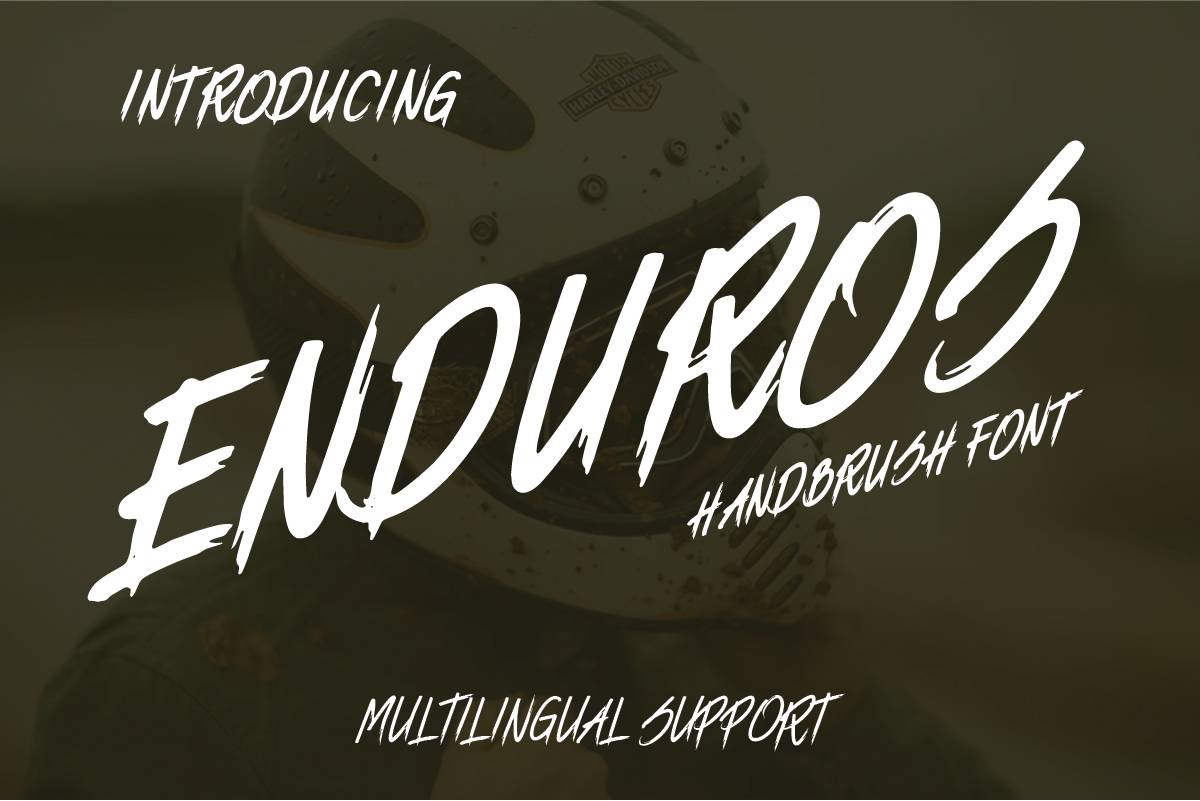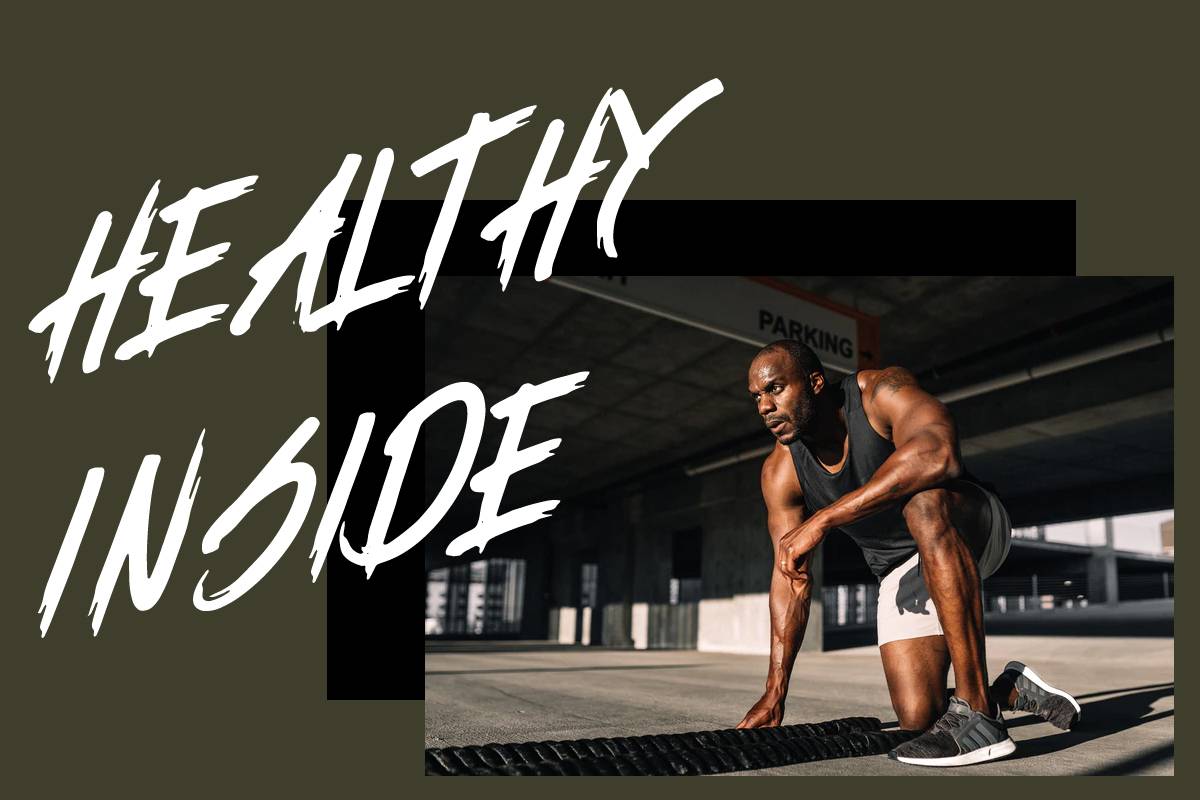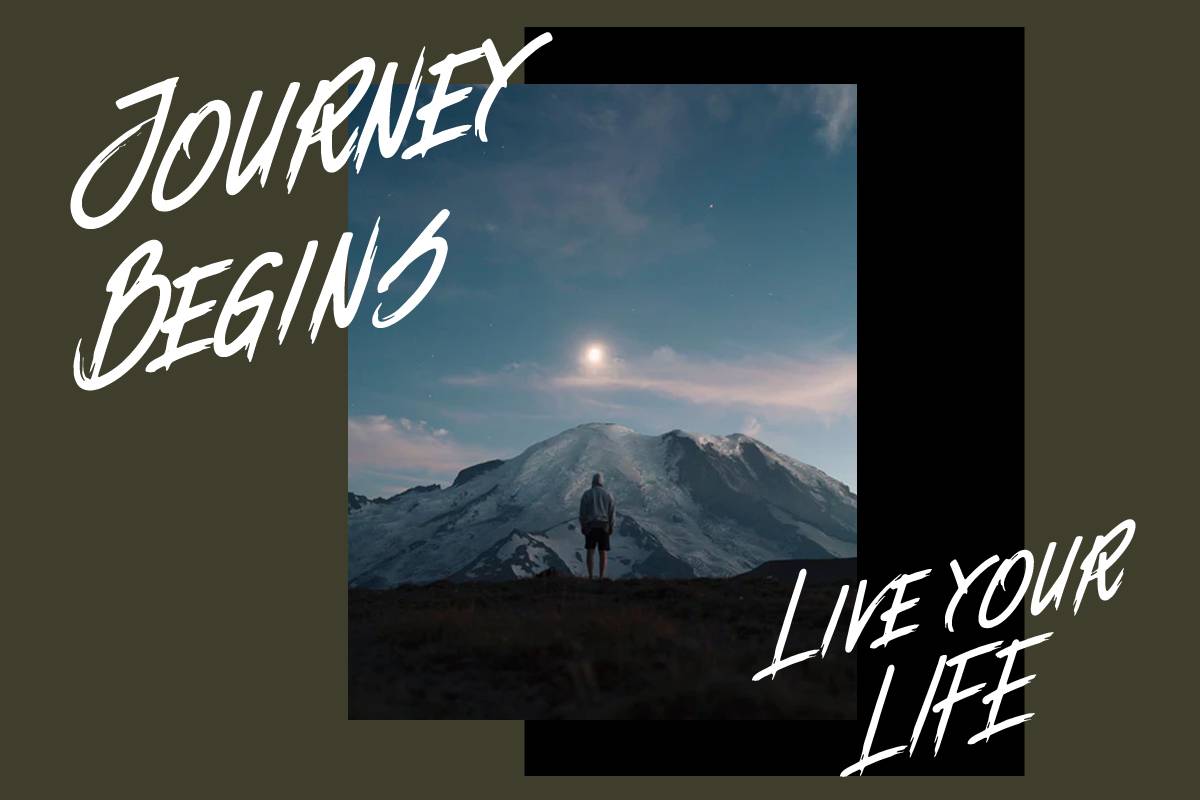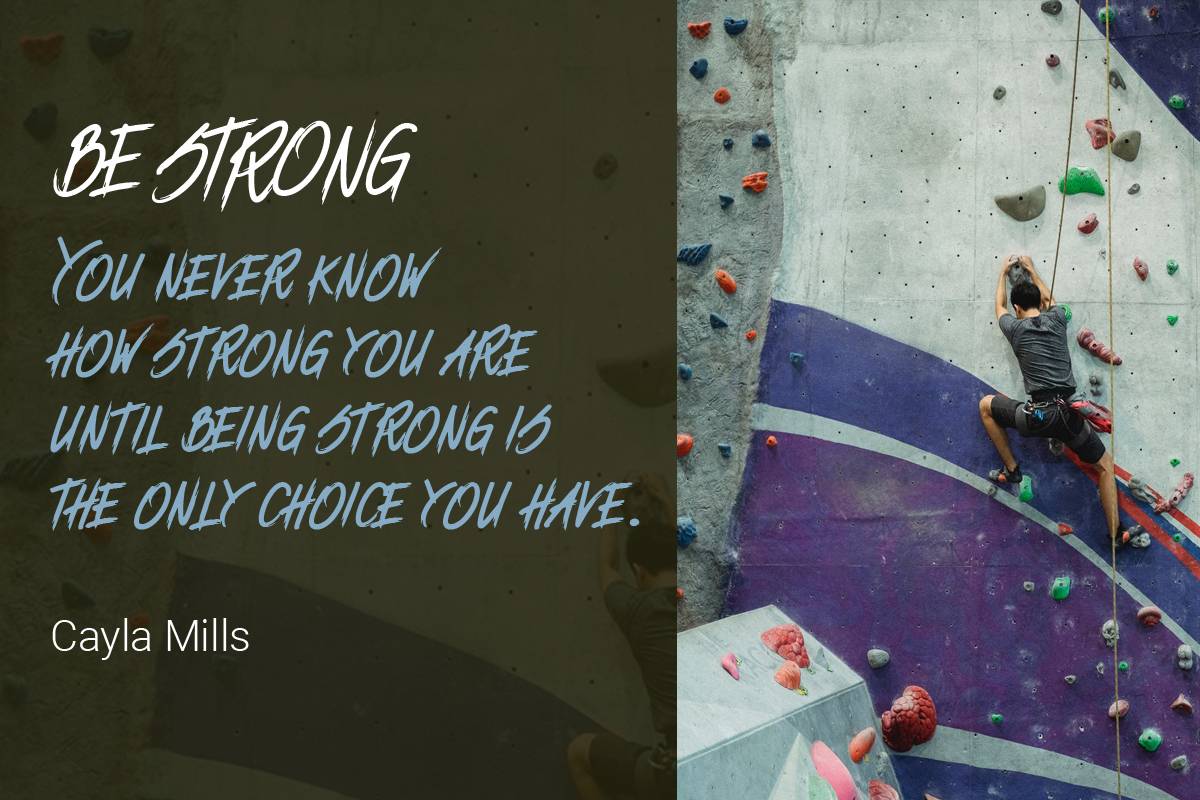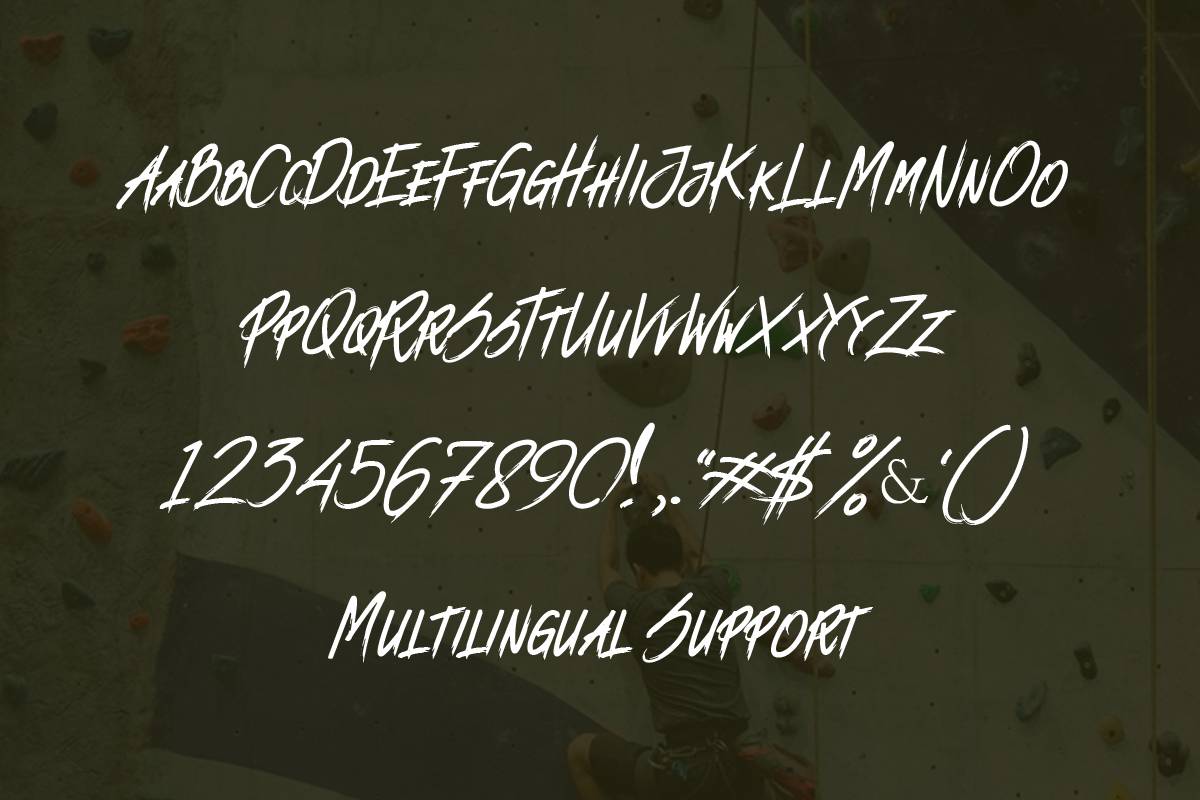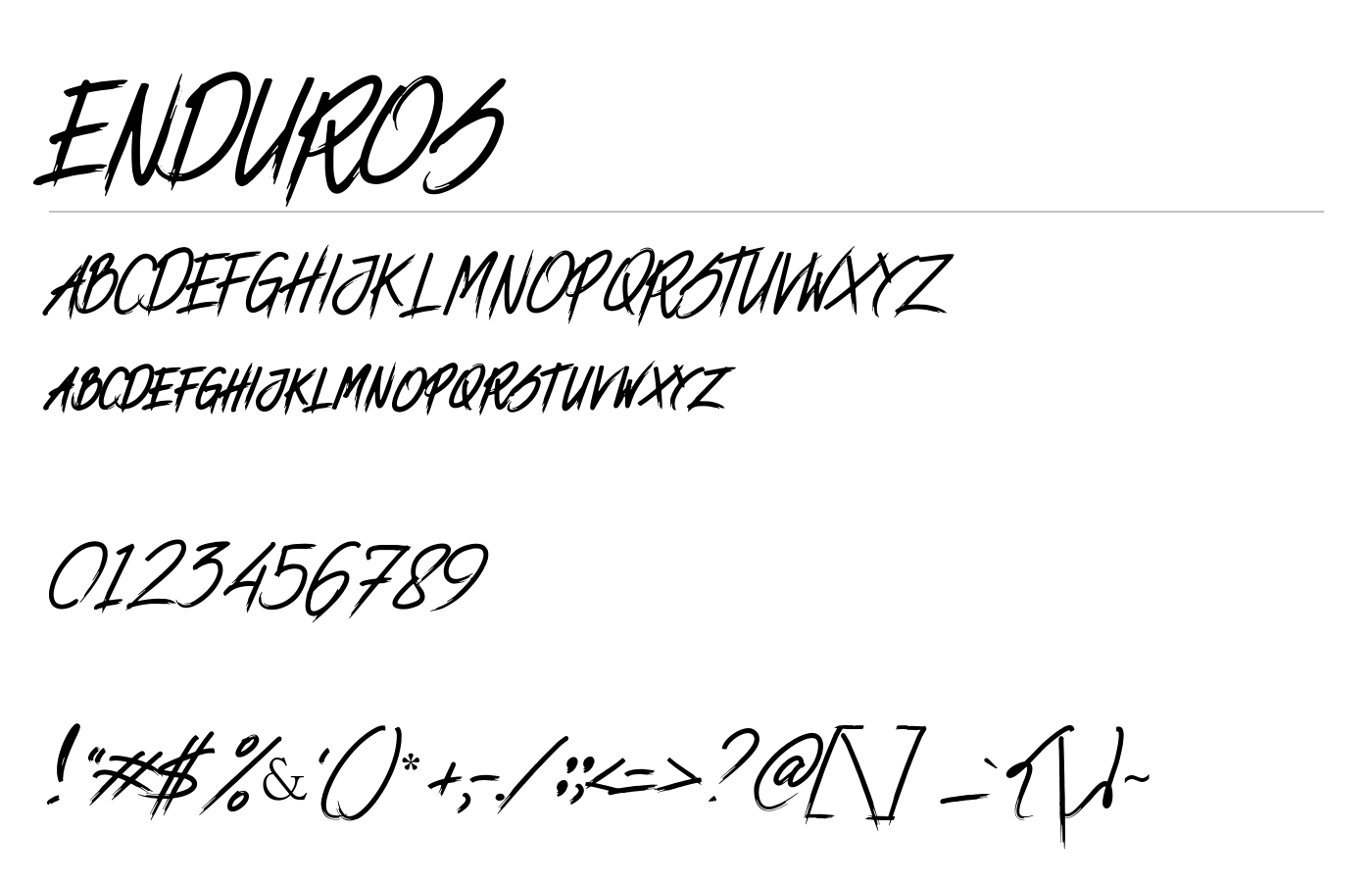
Enduros is a dynamic, hand-drawn script font with a bold and energetic style, characterized by sharp, jagged strokes and an italicized, slanted slant that suggests movement and intensity. Its uppercase letters and numerals have a casual yet aggressive feel, making it perfect for designs that want to convey excitement, adventure, or a rebellious attitude. This font works especially well in sports branding, extreme sports posters, and edgy product packaging where a raw, spontaneous vibe is desired.
Enduros Font
About Enduros Font